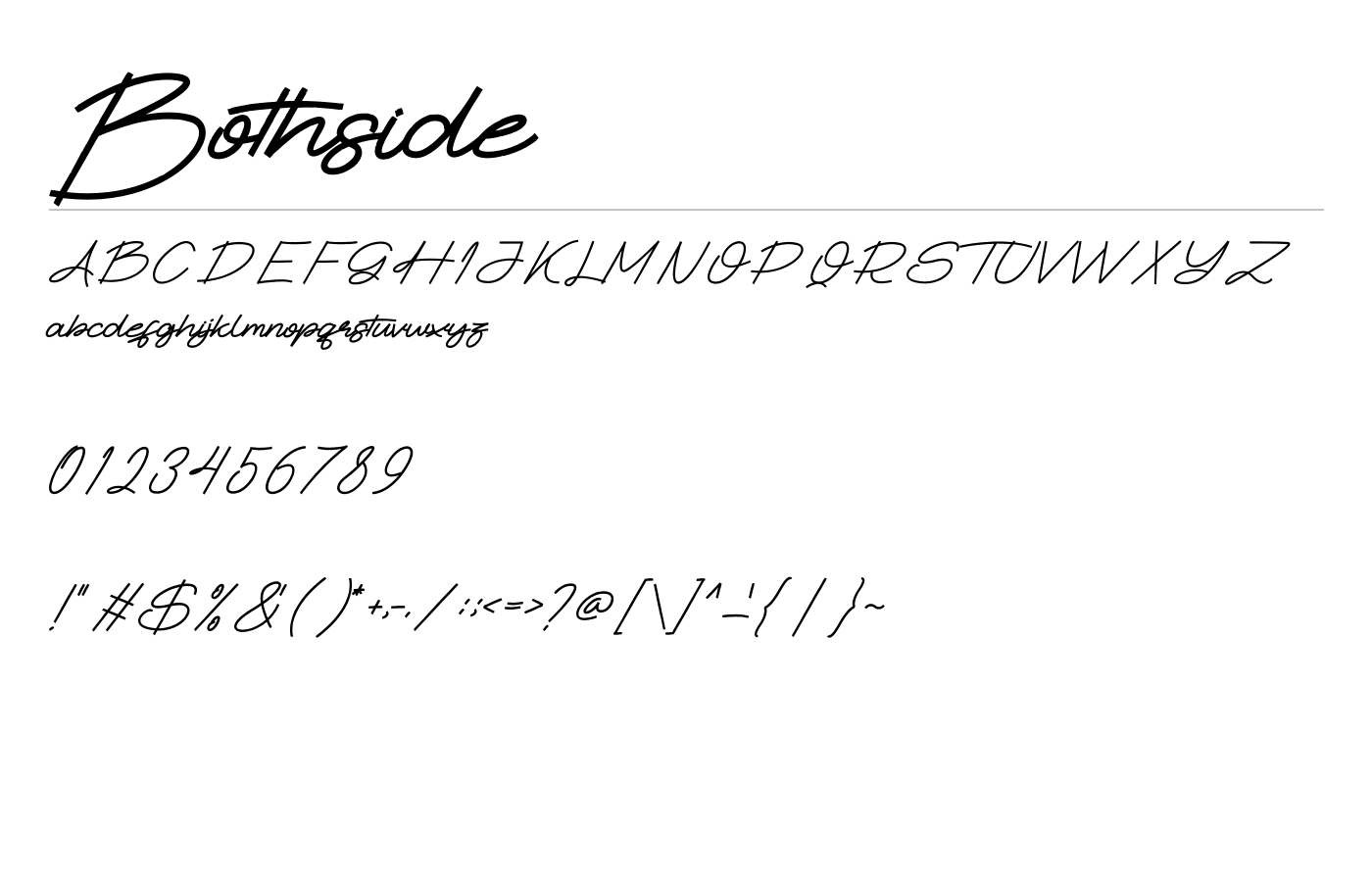
Bothside is a delicate, handwritten script font characterized by its slender, flowing strokes and elegant, slightly slanted letterforms. It has a casual yet sophisticated feel, making it perfect for creative branding, personal invitations, and stylish editorial use where a light, airy touch is desired. This font works well in designs that seek a natural, approachable style without sacrificing refinement.
Bothside Font
About Bothside Font
| Designer | Jada Akbal |